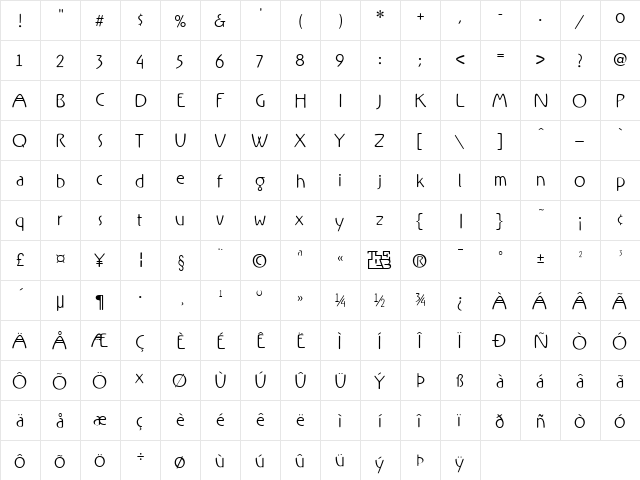
Rx-FiveZero Regular
Design Context for Rx-FiveZero Typeface
Rx-FiveZero offers clean, dependable letterforms without strong stylistic allegiance, making it a practical choice for designers who need flexibility.
Pro Tip: Pair Rx-FiveZero with a font of contrasting weight or personality to build a more expressive typographic hierarchy.